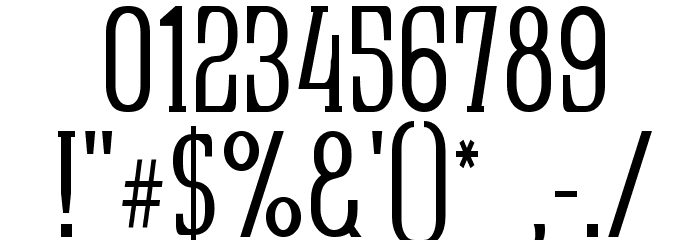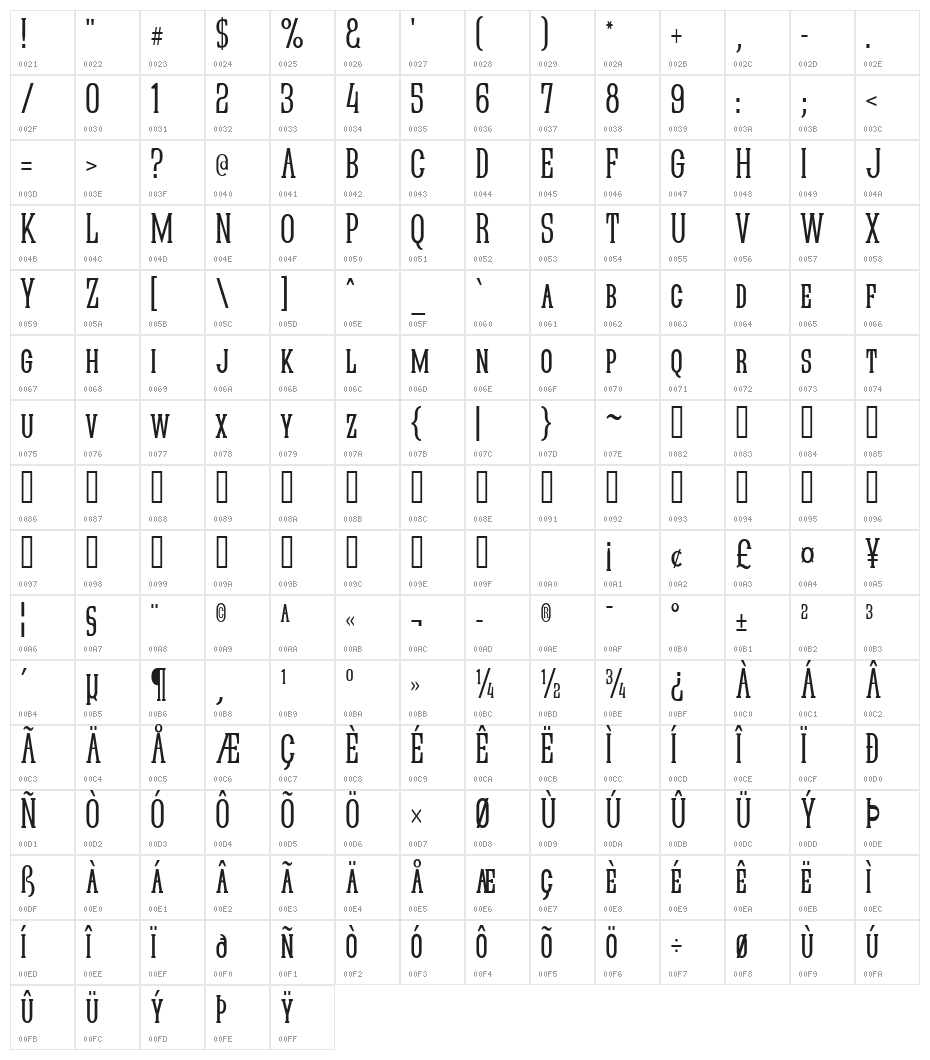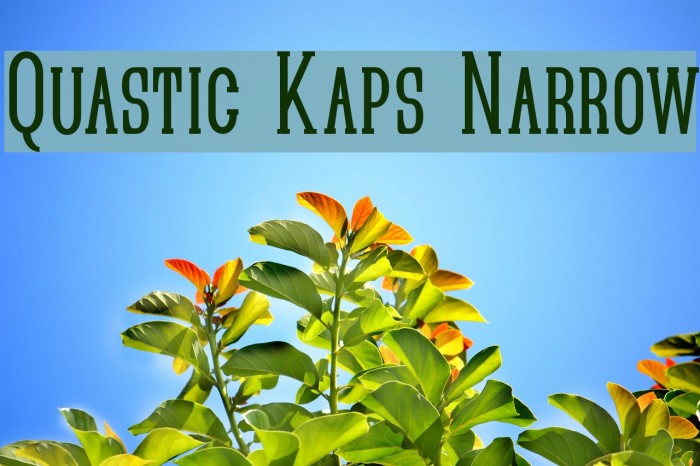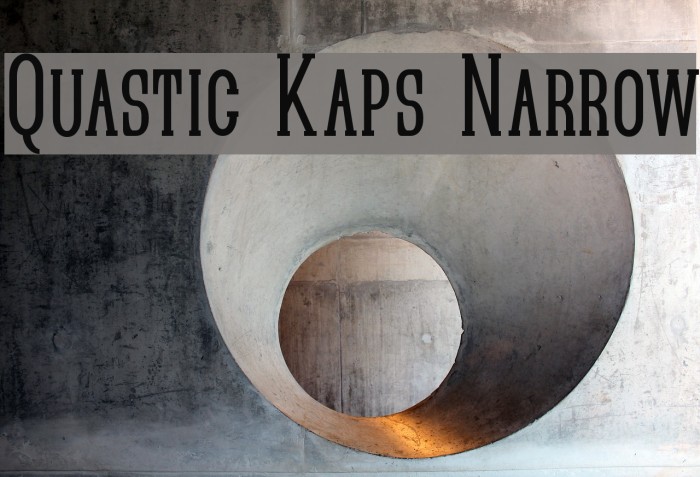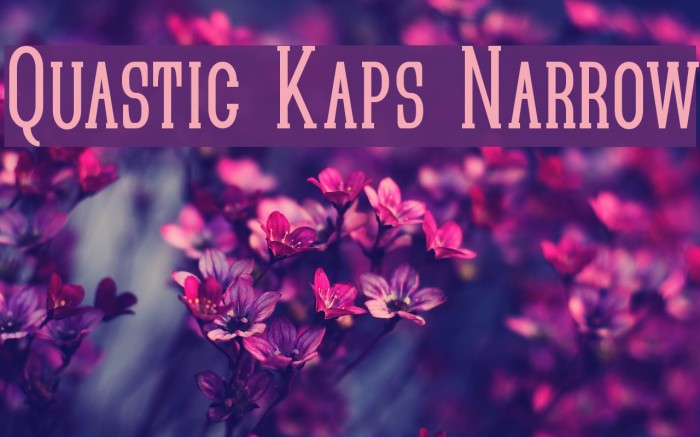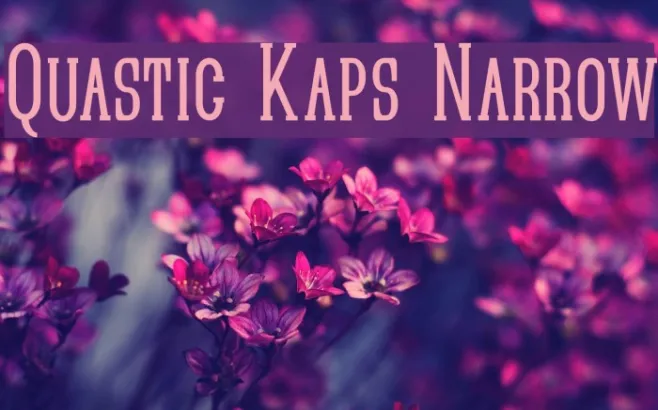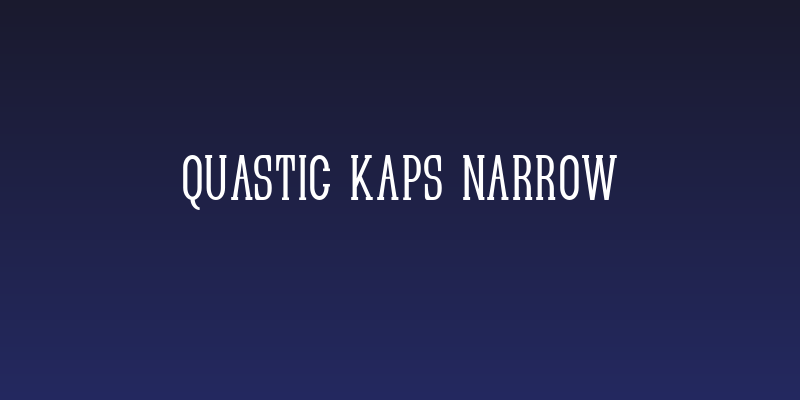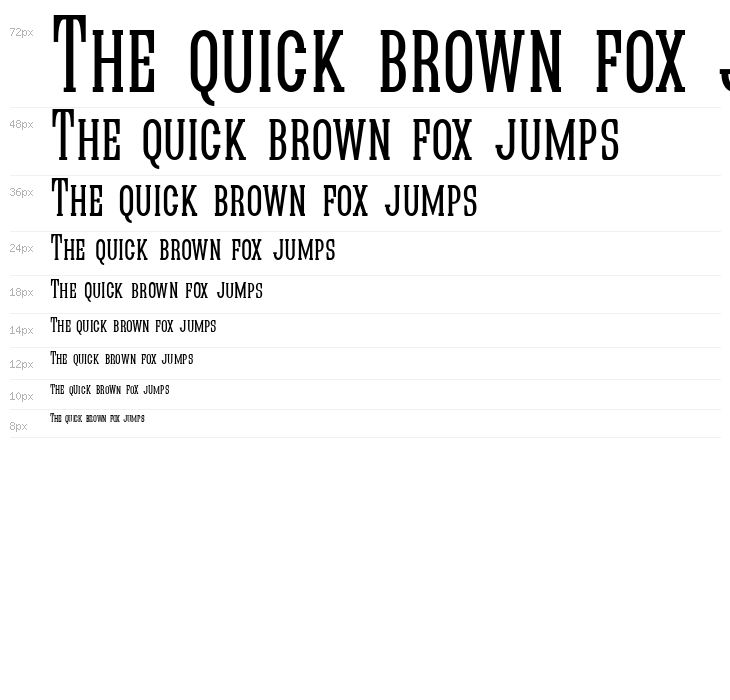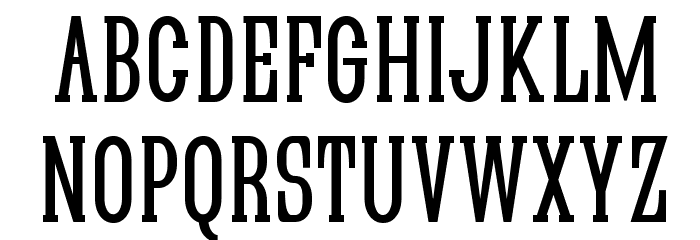
Quastic Kaps Narrow Font
Quastic Kaps Narrow Description
This font features a narrow, elongated design with a strong vertical emphasis, giving it a distinctive and bold appearance. The characters are uniformly tall and slender, with consistent stroke widths that create a cohesive look. The uppercase letters are particularly striking, with sharp serifs that add a touch of elegance and sophistication. The lowercase letters maintain the same narrow proportions, ensuring readability while preserving the font's unique style. The numerals are clear and well-defined, making them suitable for various applications. Special characters are included, each designed to match the overall aesthetic. This font's narrow width makes it ideal for projects where space is limited but impact is essential.
| Proposed Projects | Ideal for headlines, posters, and branding where a bold, sophisticated look is desired. |